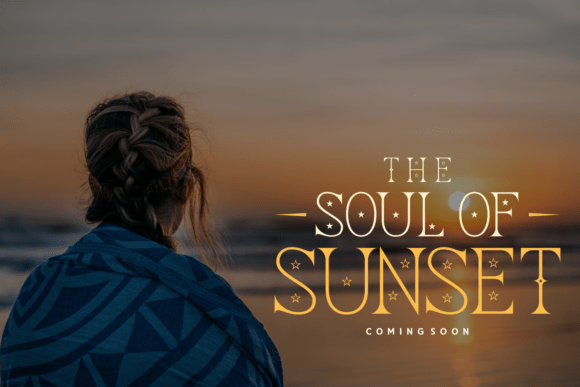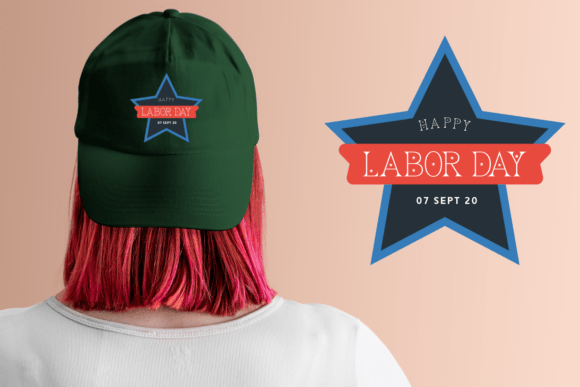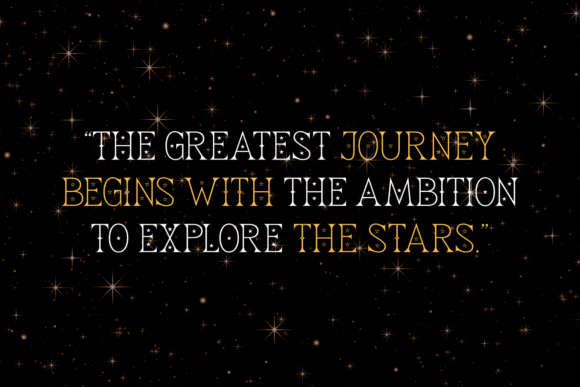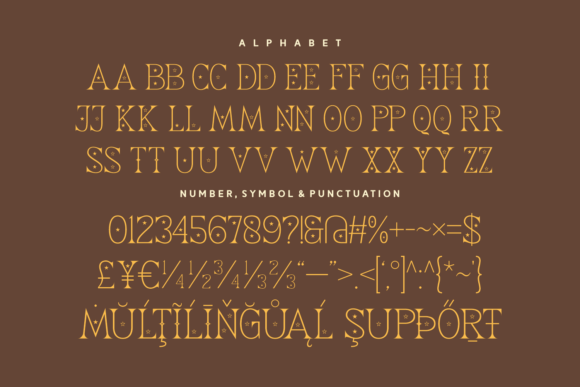
Unleash Your Creativity with the Best Star Font: A Game-Changer for Designers and Crafters
Are you on the hunt for a font that can elevate your design projects and make them stand out from the crowd? Look no further than the “Best Star” font, a stunning fusion of decorative and star fonts that is sure to turn heads. This versatile typeface is perfect for a wide range of applications, from wallpapers and craft projects to social media graphics and print materials.
A Perfect Blend of Beauty and Authenticity
The “Best Star” font is designed to combine beauty and authenticity, making it a truly unique addition to any design project. Its clean aesthetic and exquisite design elements make it pleasing to the eye, while its versatility ensures that it can be used in a variety of contexts. Whether you’re a designer looking to create a striking visual identity for a brand or a crafter seeking to add a personal touch to your DIY projects, this font is sure to impress.
One of the standout features of the “Best Star” font is its incredible versatility. It can be used to create a wide range of design elements, from logotypes and infographics to greeting cards and packaging. Here are just a few examples of the many ways you can use this amazing font:
- Branding: Use “Best Star” to shape a brand’s identity on cards, business cards, and other marketing materials.
- Social Media Graphics: Create stunning social media graphics, including Instagram posts, Facebook covers, and Twitter headers.
- Craft Projects: Add a personal touch to your craft projects, such as scrapbooking, card making, and DIY gifts.
- Print Materials: Use “Best Star” to create eye-catching print materials, including brochures, flyers, and posters.
- Apparel: Make a unique statement with “Best Star” on t-shirts, hoodies, and other apparel items.
Why “Best Star” is a Top Choice for Designers and Crafters
So why should you choose “Best Star” over other fonts? Here are just a few reasons why this font stands out from the crowd:
- Unique Design: “Best Star” boasts a unique and eye-catching design that is sure to grab attention.
- Versatility: This font can be used in a wide range of applications, from digital design to print materials.
- Authenticity: This font combines beauty and authenticity, making it a great choice for designers and crafters seeking to create unique and eye-catching designs.
Tips and Tricks for Using “Best Star”
Here are a few tips and tricks to help you get the most out of “Best Star”:
- Experiment with Different Sizes: Try using “Best Star” in different sizes to create visual interest and hierarchy in your designs.
- Combine with Other Fonts: Pair “Best Star” with other fonts to create a unique and eye-catching combination.
- Use on Different Backgrounds: Try using “Best Star” on different backgrounds, such as images, textures, or solid colors, to create a range of effects.
In conclusion, the “Best Star” font is a game-changer for designers and crafters seeking to create unique and eye-catching designs. Its versatility, beauty, and authenticity make it a top choice for a wide range of applications, from branding and social media graphics to craft projects and print materials. With its ease of use and endless possibilities, “Best Star” is sure to become a staple in your design toolkit.